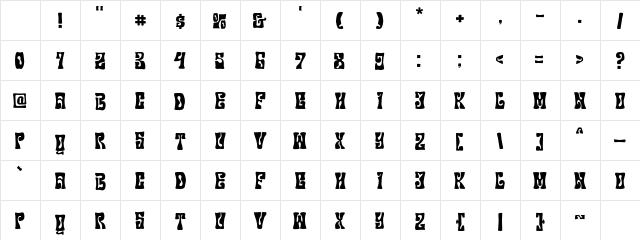
Rogena Display is built around its visual character rather than neutral utility - its distinctive forms are designed to make an impression at display sizes.
Font Pairing: Pair with a clean neutral sans-serif for body copy to let Rogena Display's character lead without overwhelming the composition.
Pro Tip: Use Rogena Display exclusively at display sizes - it was designed to be seen, not read at length. Let a neutral companion handle body copy.